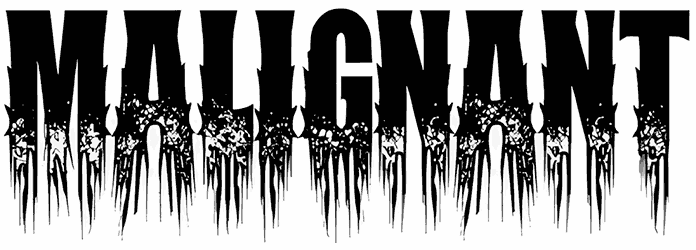
Malignant Font
Malignant provides you with good ideas for creating a sense of coldness in winter writing. Hanging lanterns at the end of each letter of this horror font will help your marketing a lot while creating a scary atmosphere.…
Malignant provides you with good ideas for creating a sense of coldness in winter writing. Hanging lanterns at the end of each letter of this horror font will help your marketing a lot while creating a scary atmosphere.
That’s why many designers do not consider the absence of numbers and small letters in this metal font, and are armed with this tool to create horrible shadows in computer games and Halloween advertisements.